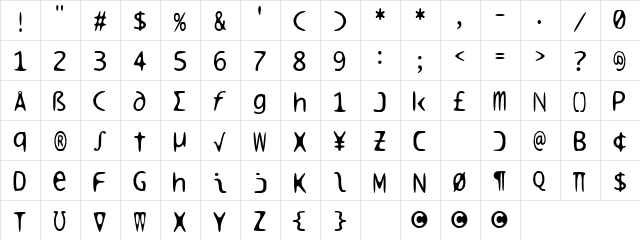
pHreAk KruSty
Design Context for pHreAk Typeface
pHreAk is a composed and adaptable typeface that performs quietly and consistently across a wide range of design contexts.